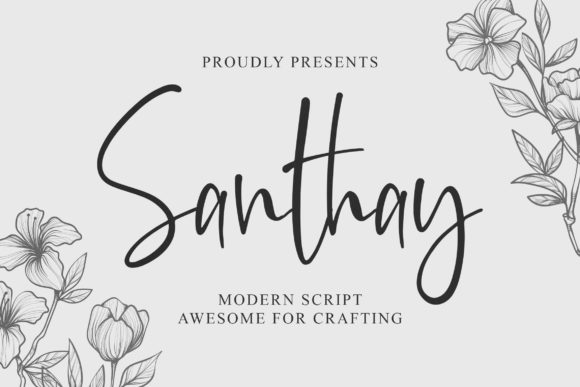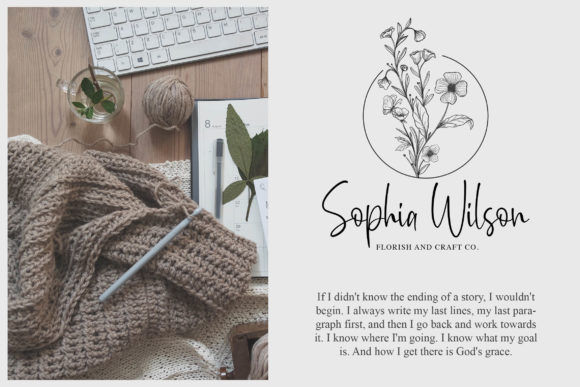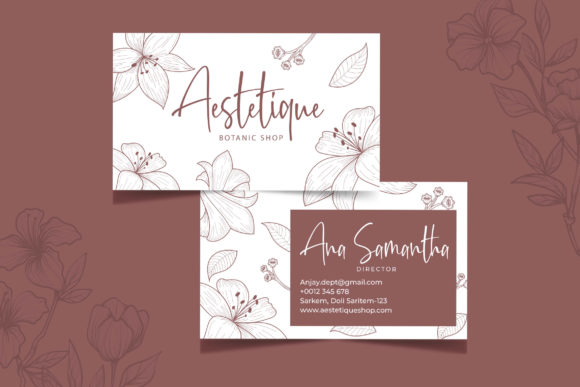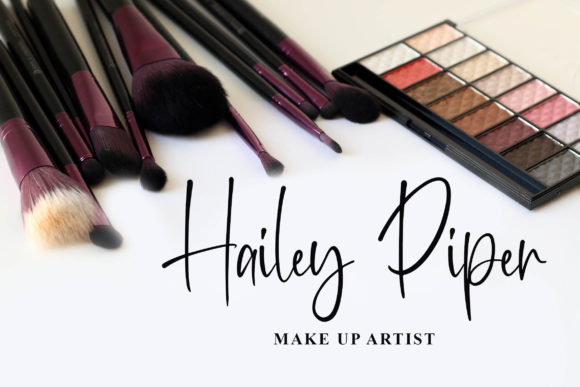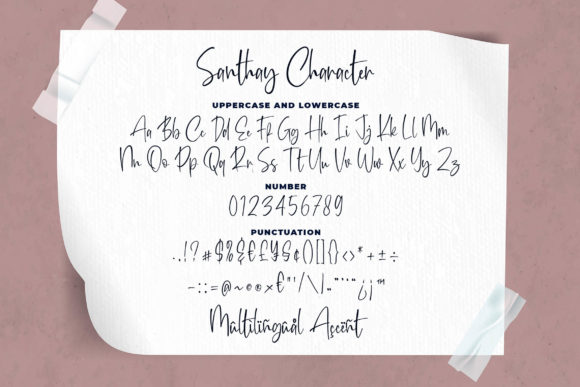
Santhay Font
About Santhay Font
Girly Moods is a magical and light script that radiates authenticity. Use it to take any design project to the next level.